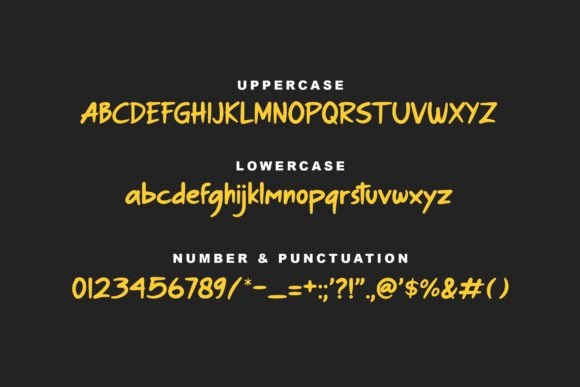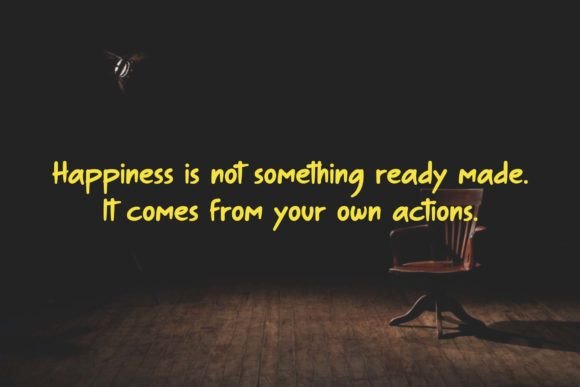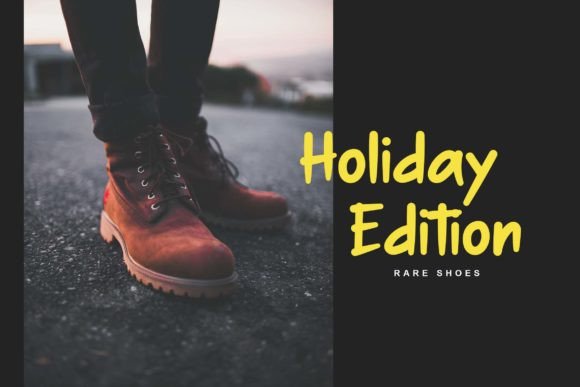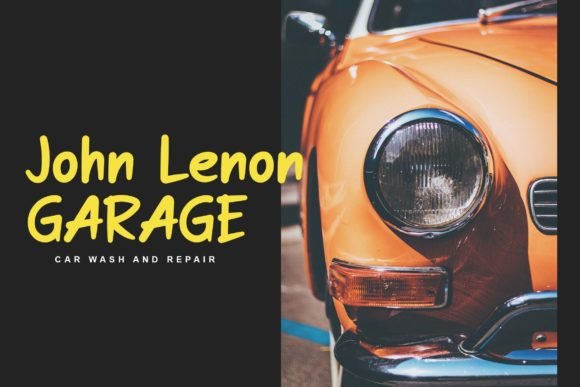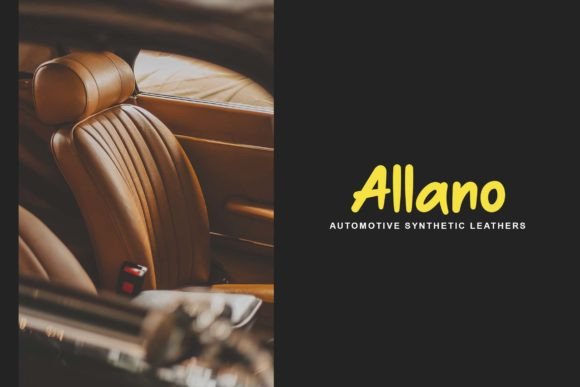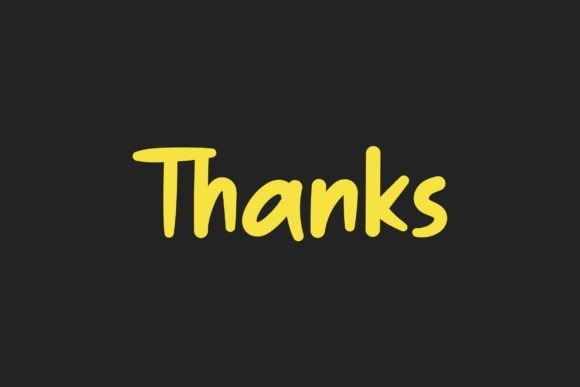
Introduction to Ketan Sambel Font
Ketan Sambel is a fun and casual display font.
Add it confidently to your creative ideas and you will love the results .
Key Features of Ketan Sambel Font
Why Choose Ketan Sambel Font?
Ketan Sambel Font offers exceptional quality and versatility, making it a valuable addition to your design toolkit. Whether you’re creating for personal projects or commercial use, Ketan Sambel Font delivers professional results.